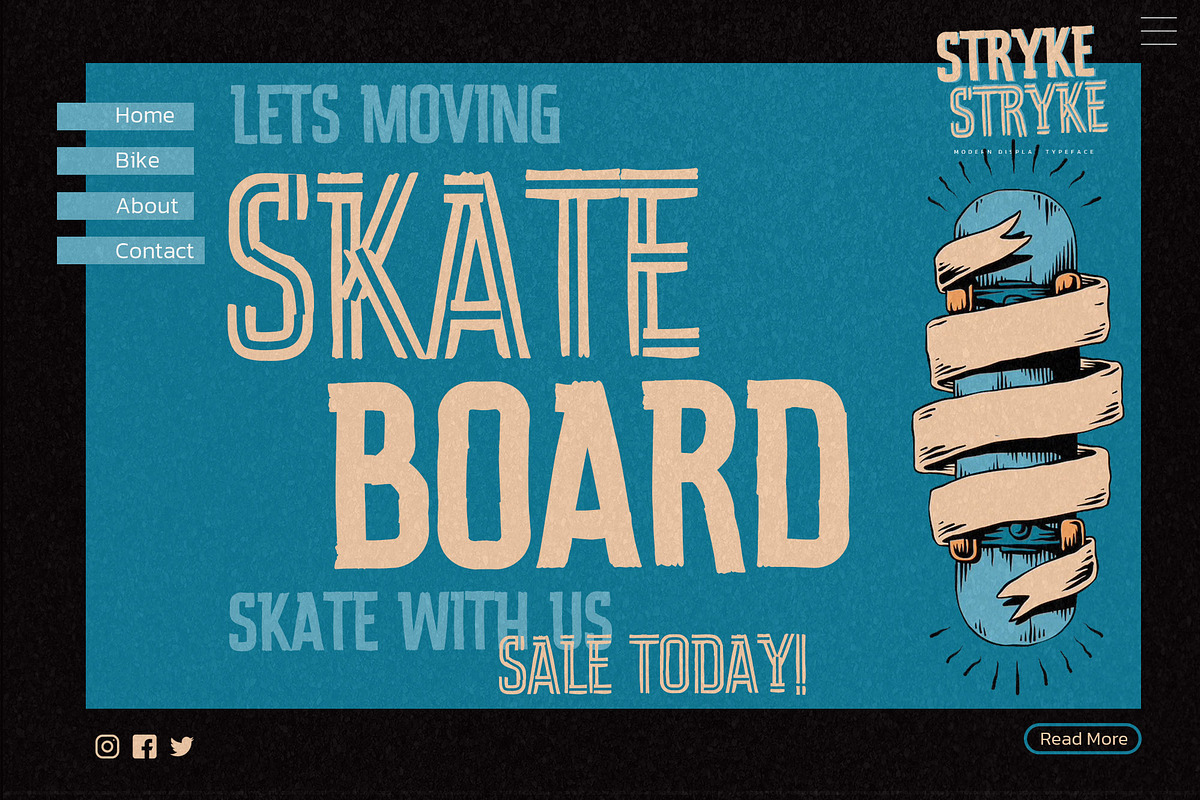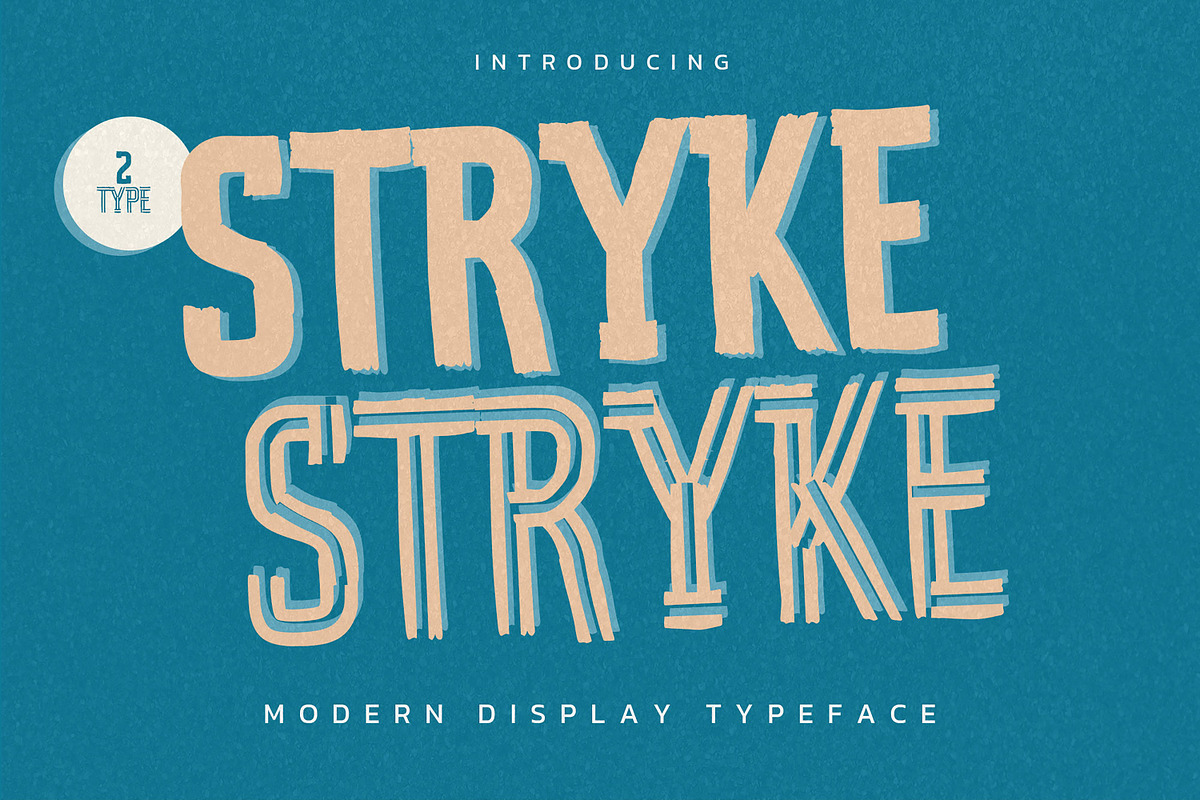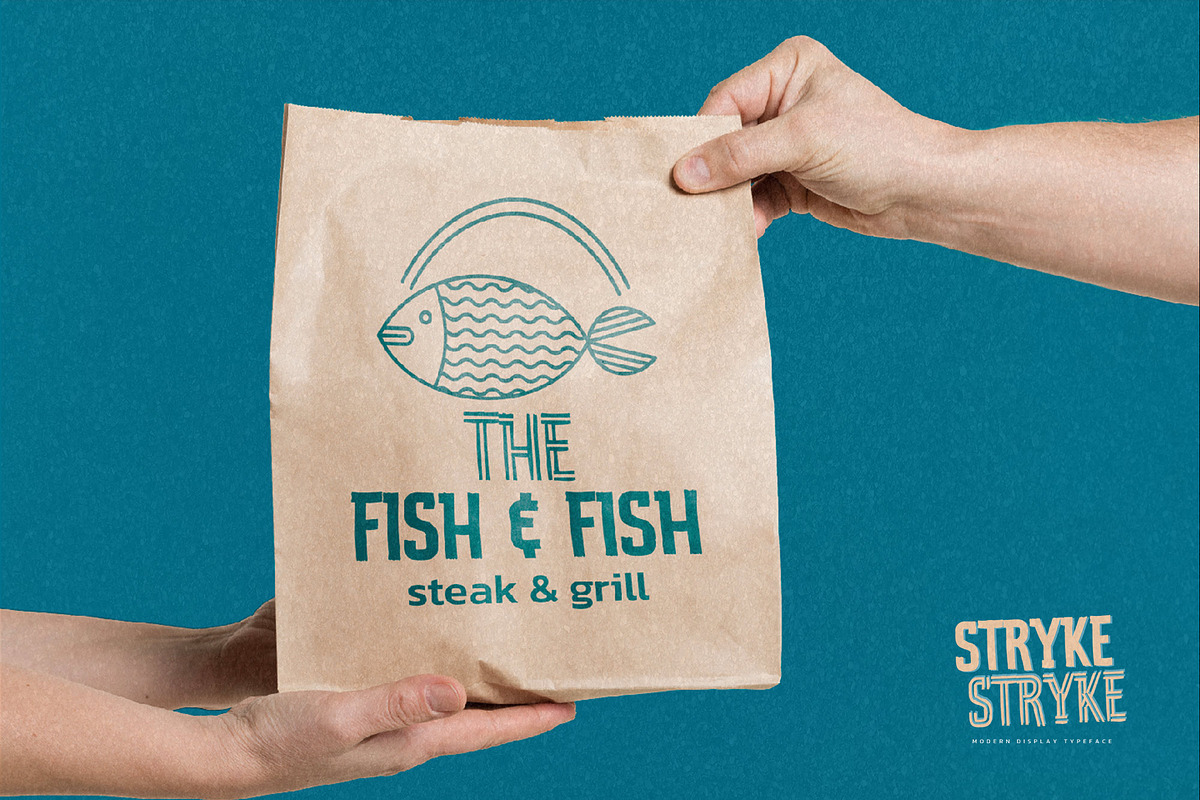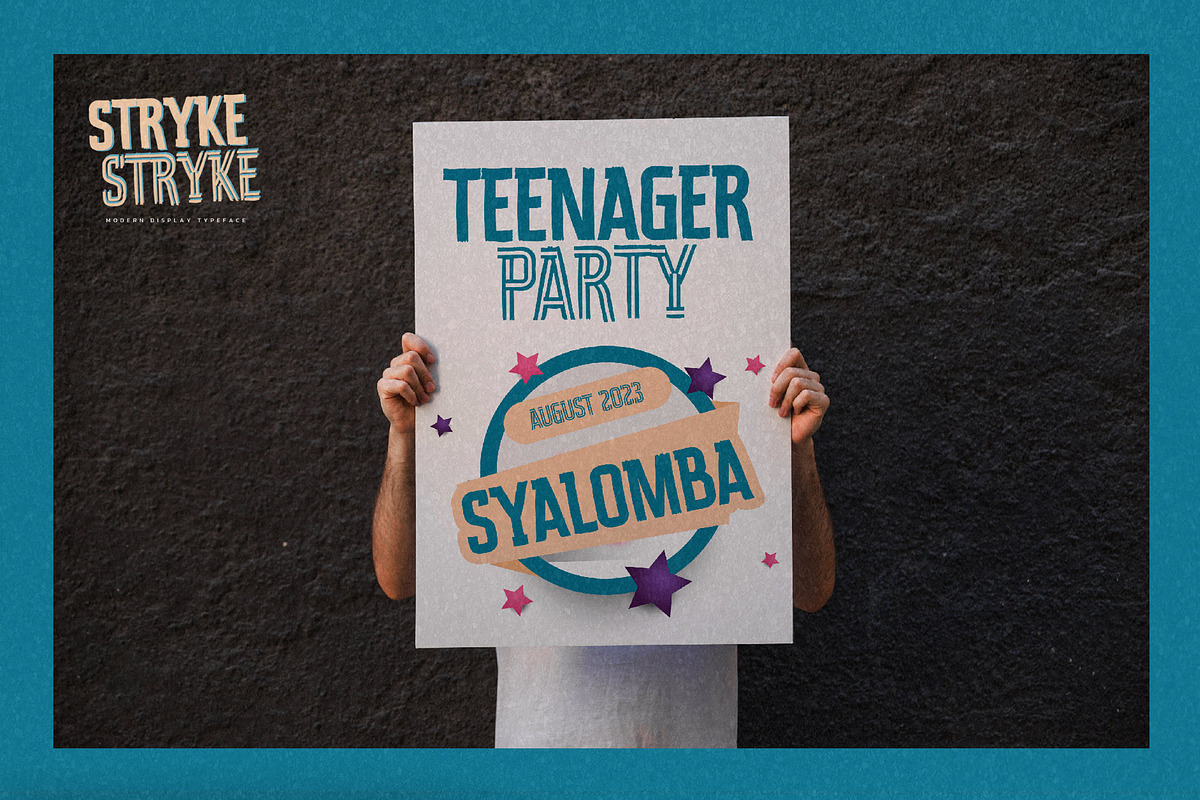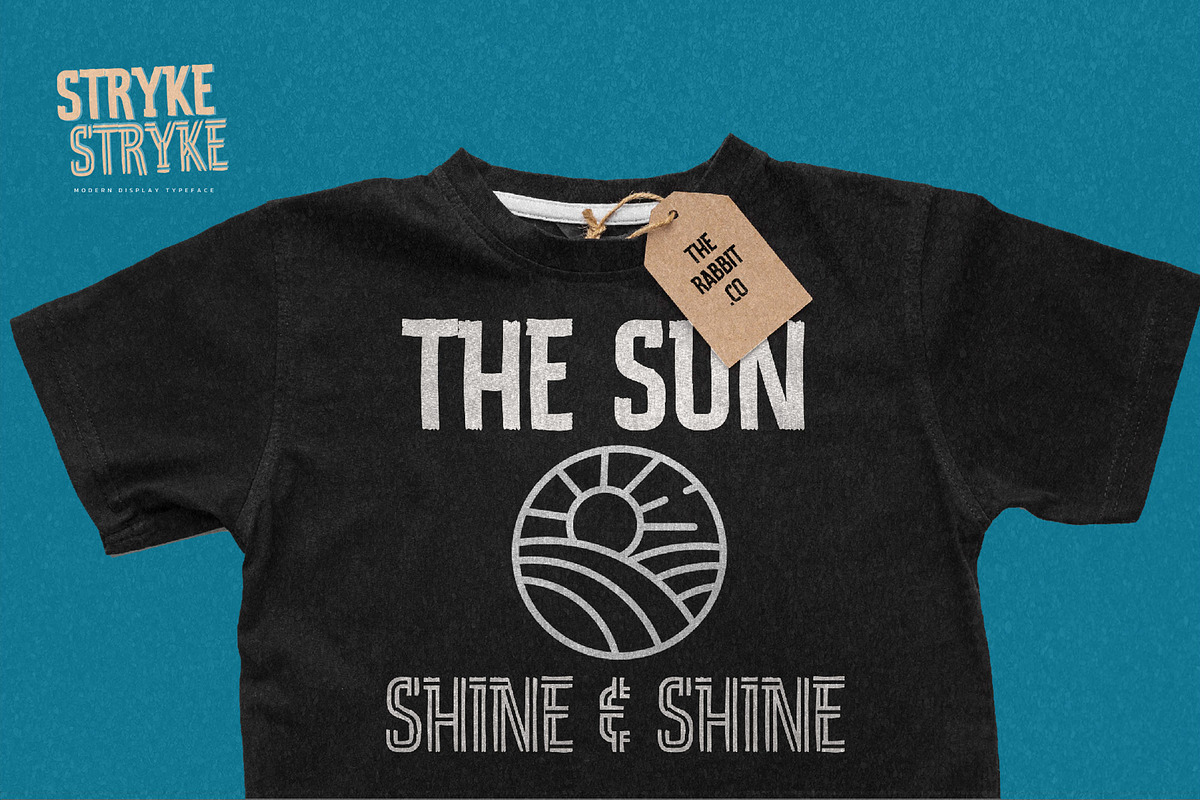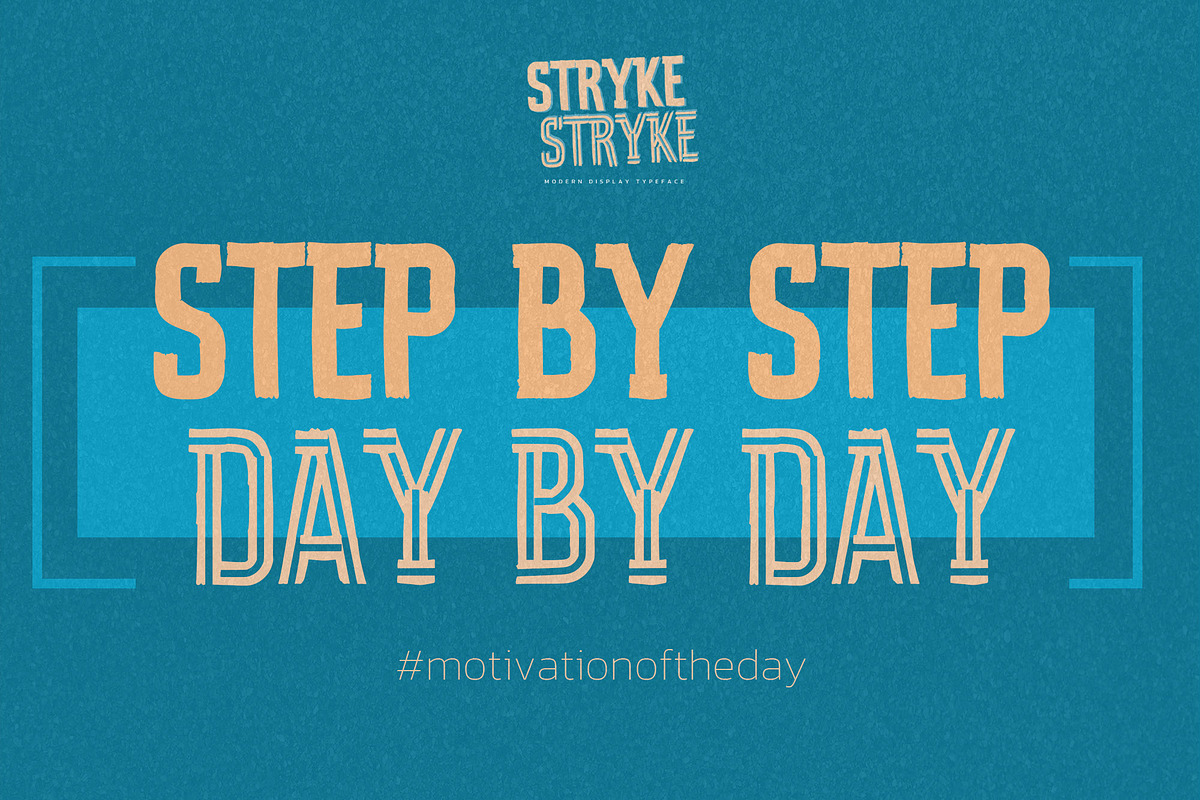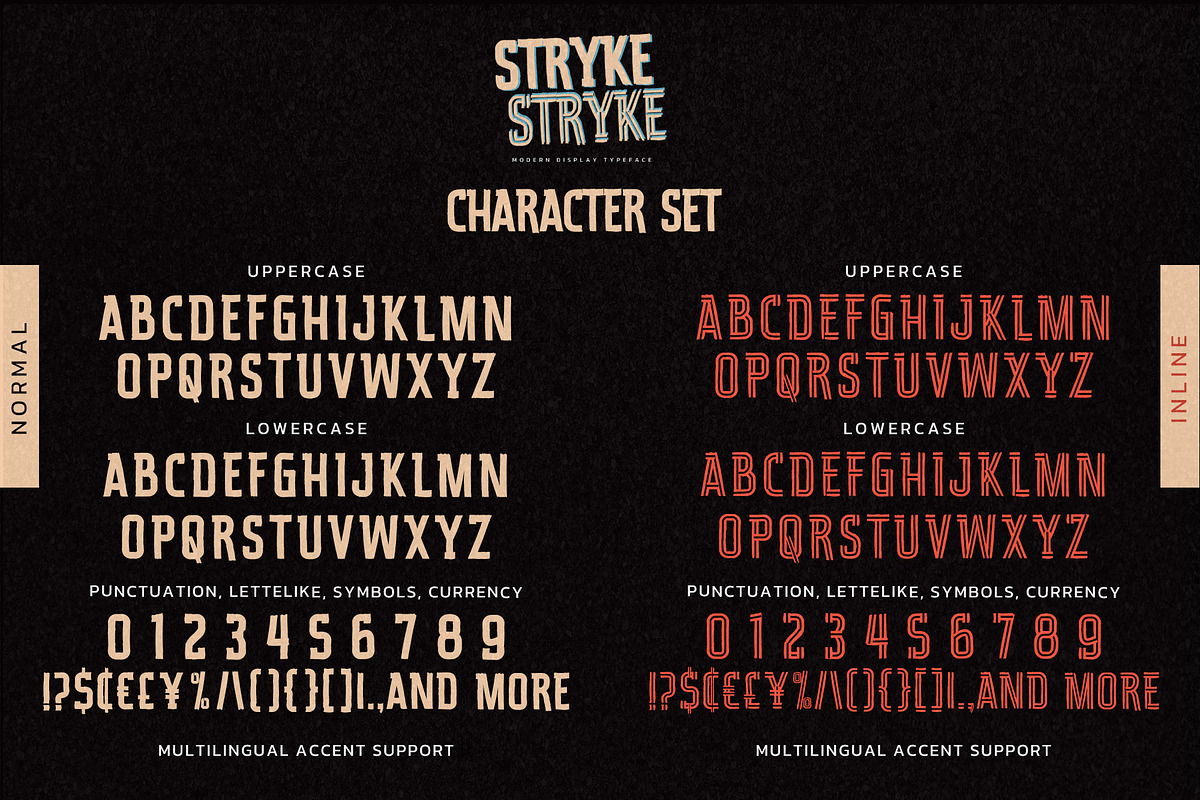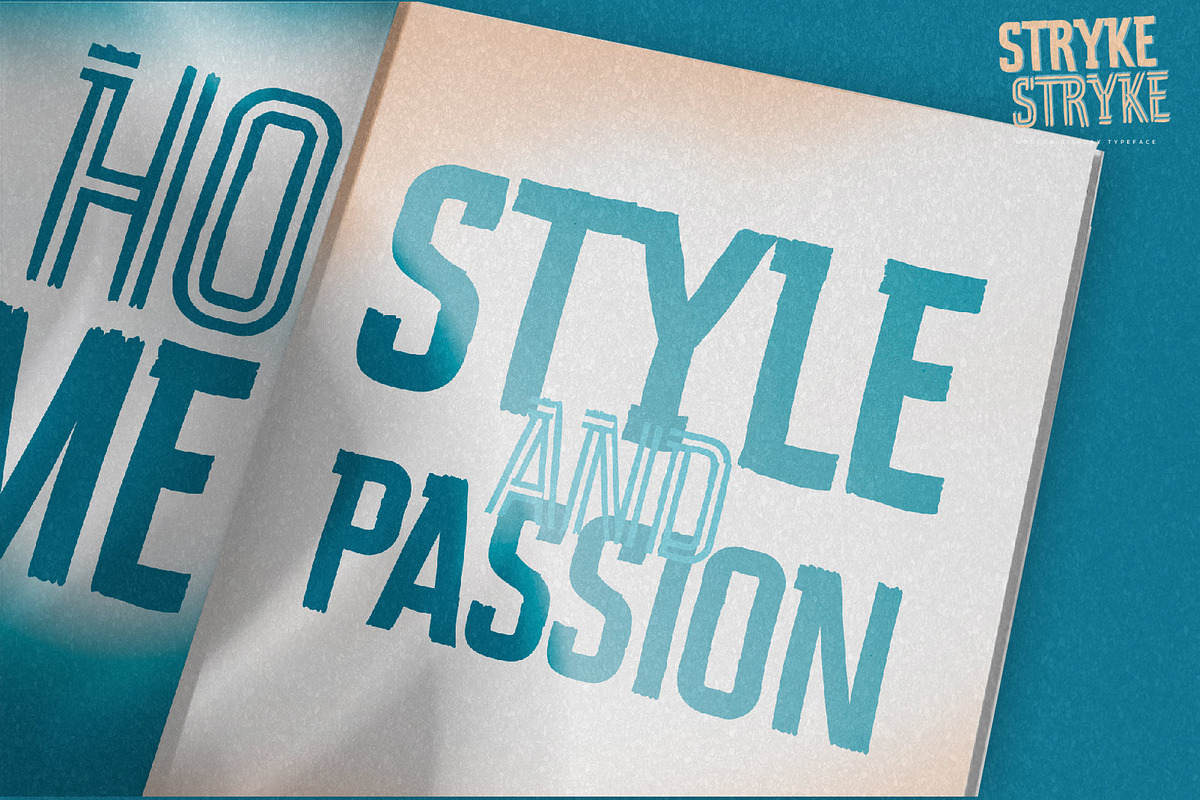
STRYKE - Modern Display Typeface
Hello Everyone, introduce our new product STRYKE is Modern Display Typeface with a natural feel. This handmade font will make your design has a beautiful natural touch for each details. It is perfect for any design project as Invitation,logo, book cover, craft or any design purposes.
STRYKE is 2 type Inspired by Sport Logo style and combination with Unique Craft style. that will fulfill your design needs for quotes,sporty theme, logotype, wordmark, etc. This has many opentype features and support multi language. This font is PUA encoded which means you can access all of the magical glyphs with ease!